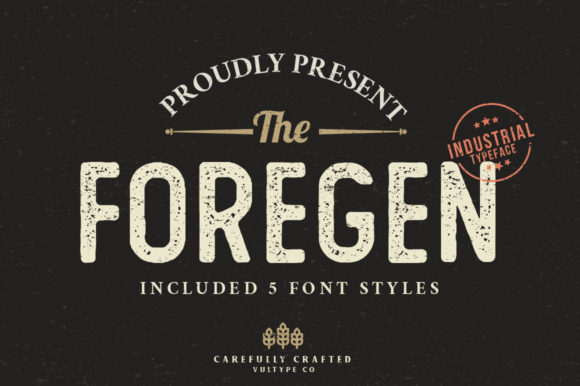
Introducing The Foregen Font, a display font that's as rugged as it is remarkable.
Step into a world of vintage charm and let The Foregen Font captivate you with its bold and beautiful strokes. Inspired by the aesthetics of bygone eras, this font exudes a timeless elegance that will add a touch of sophistication to your designs.
With its rough-hewn edges and powerful presence, The Foregen Font is perfect for creating designs that evoke a sense of nostalgia. Whether you're working on branding, posters, or social media graphics, this font will help you craft designs that stand out from the crowd.
The Foregen Font is incredibly versatile, lending itself to a wide range of design projects. Use it to create eye-catching headlines that demand attention, or incorporate it into your logo design for a look that's both classic and contemporary. The possibilities are endless.
So don't settle for ordinary fonts. Embrace the extraordinary with The Foregen Font and let your creativity soar.